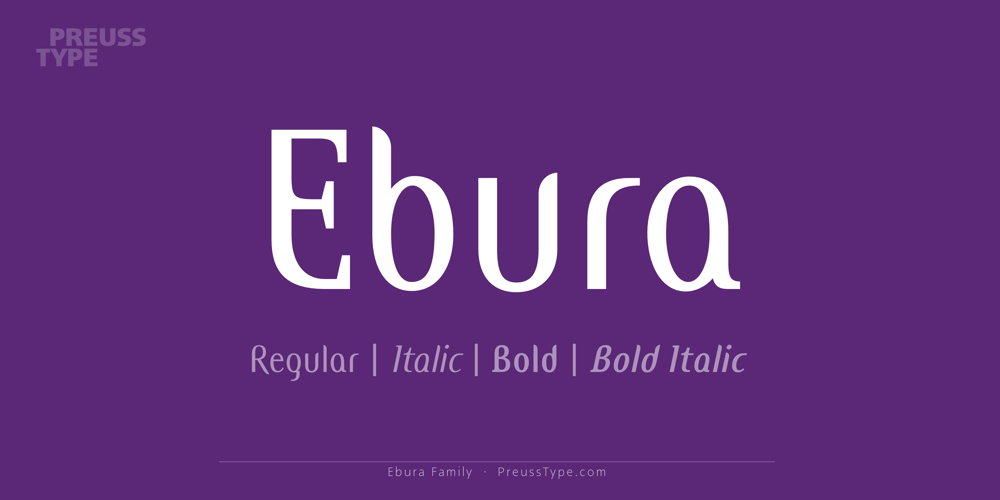
Ebura
Ebura font
Ebura Font Family was designed by Ingo Preuss and published by preussTYPE. Ebura contains 4 styles and family package options. Ebura is a funny and fashionable sansserif (or semi-serif?) type. Extended Latin, extended figures and SmallCaps are supported in OpenType. OpenType features: Ebura contains 740 Glyhps Standard Ligatures Discretionary Ligatures Denominators Ordinals Scientific Features Superscript Slashed Zero Small Capitals Old Style & Lining Figures Proportional Numerals & Tabular Figures